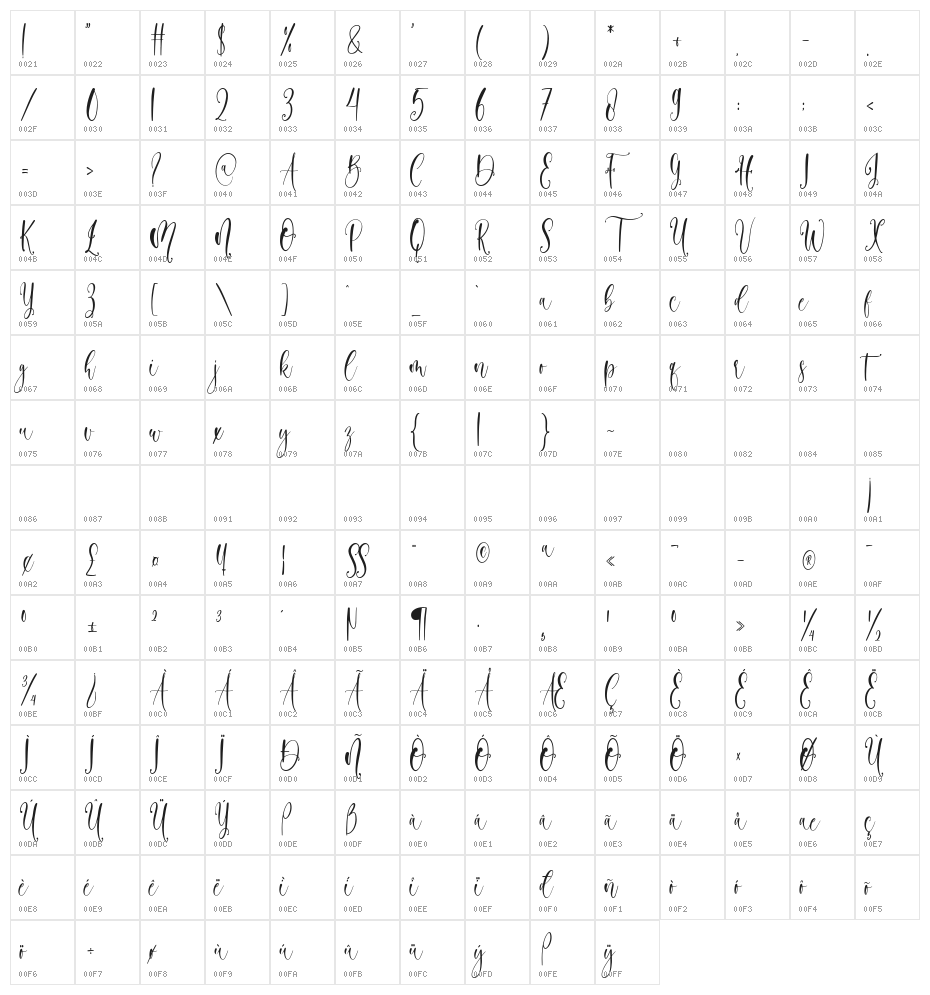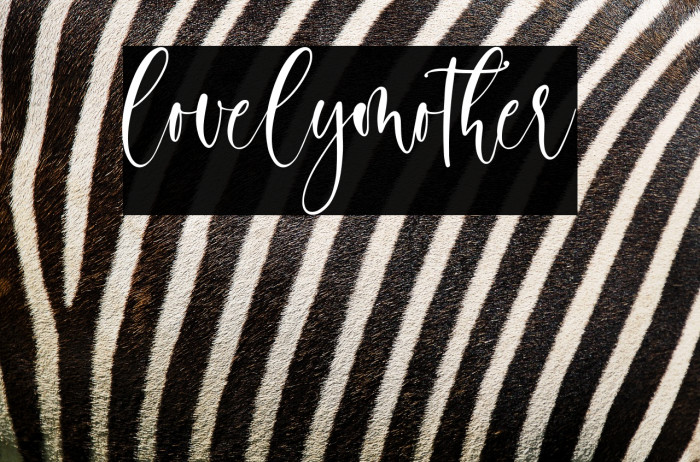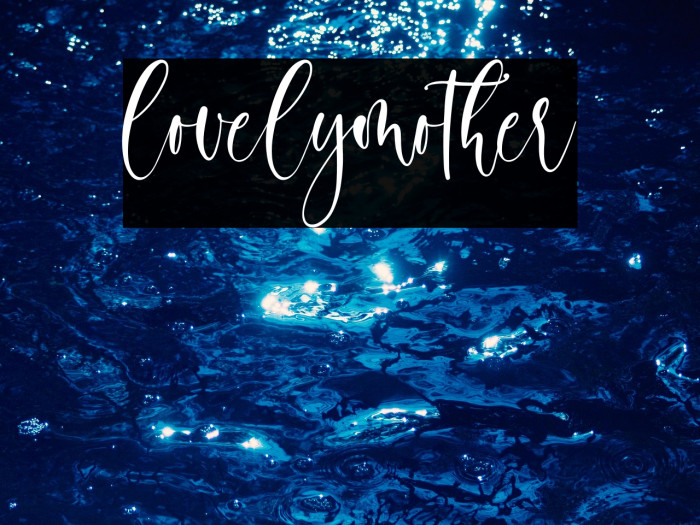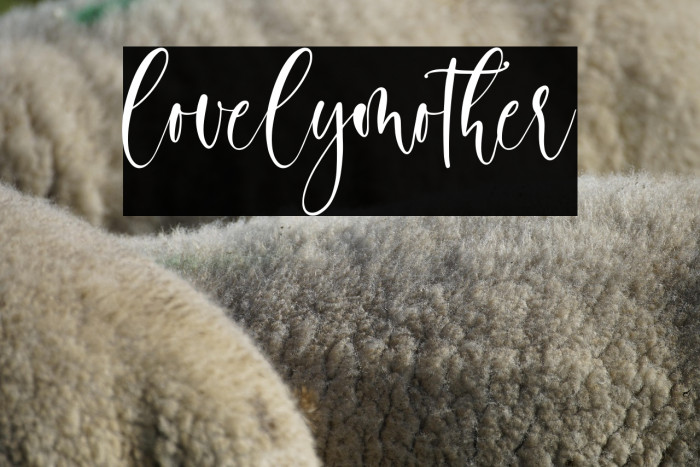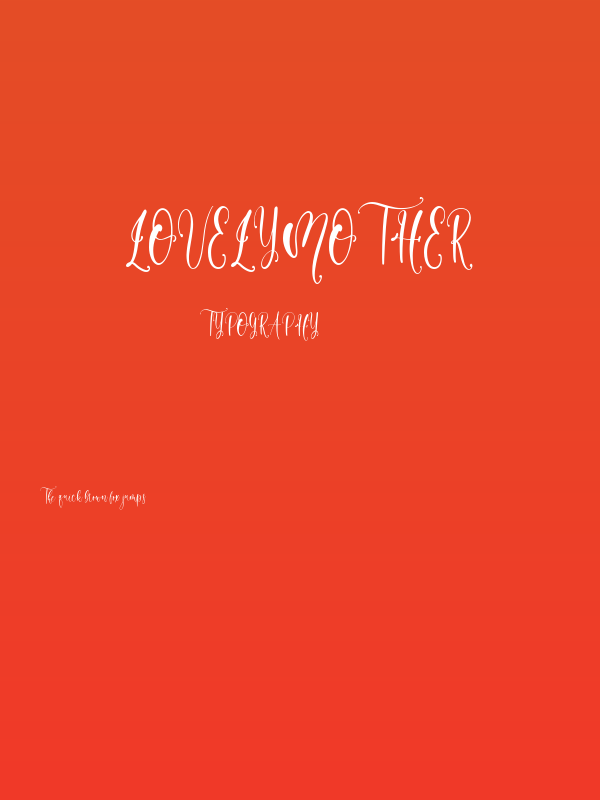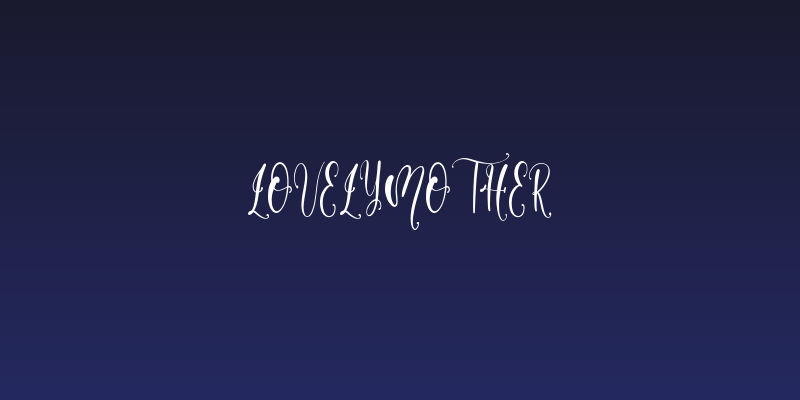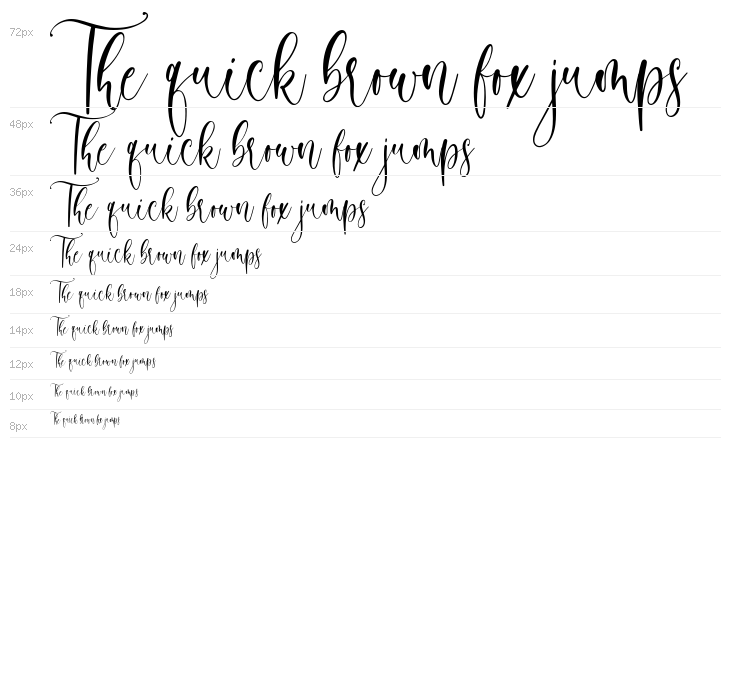
lovelymother Font
lovelymother Description
This elegant script font features a flowing, handwritten style with graceful curves and loops. The uppercase letters are tall and slender, with distinctive swashes that add a touch of sophistication. The lowercase letters maintain a consistent rhythm, enhancing readability while preserving the font's artistic flair. Numbers and special characters are designed with the same fluidity, making them blend seamlessly with the alphabet. This font exudes a sense of elegance and charm, perfect for projects that require a personal, yet refined touch.
| Overall Style | Elegant, Artistic |